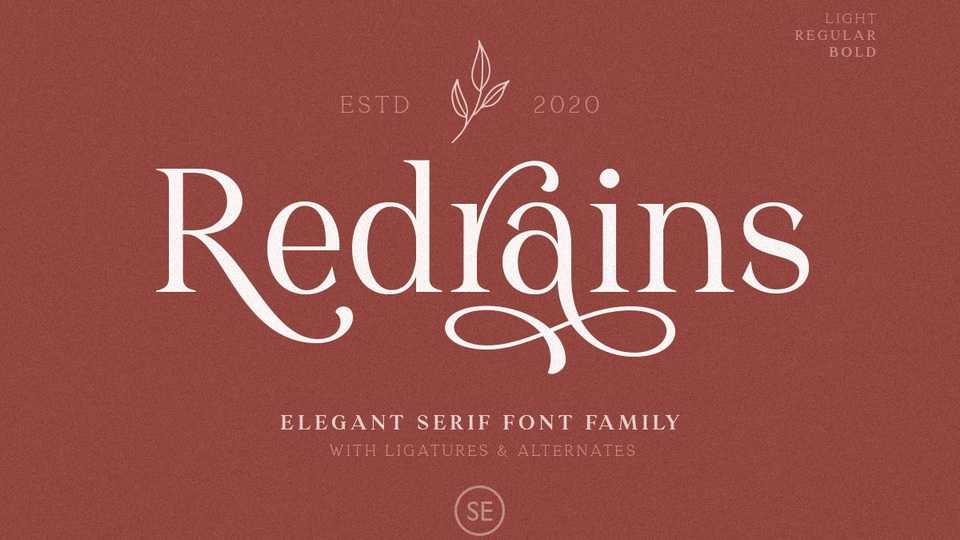
Download Redrains font, a classic and modern serif typeface with a bunch of alternates for each characters and ligatures that will make your presentation or logo even more stunning and stand out.